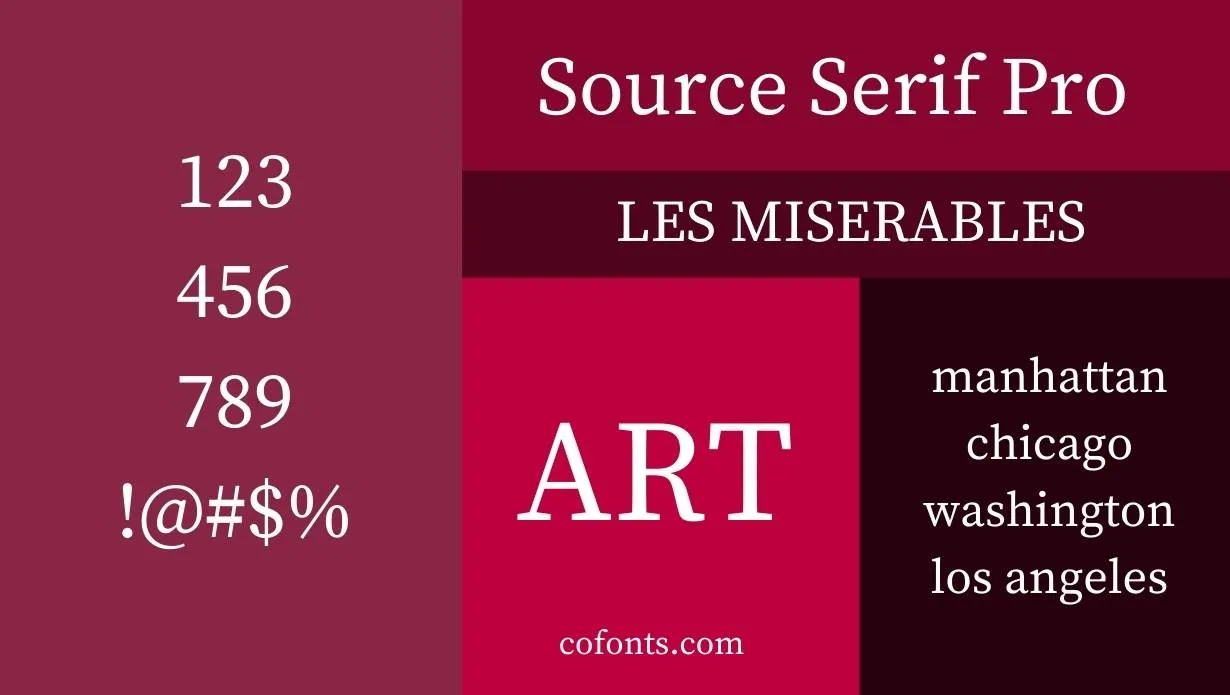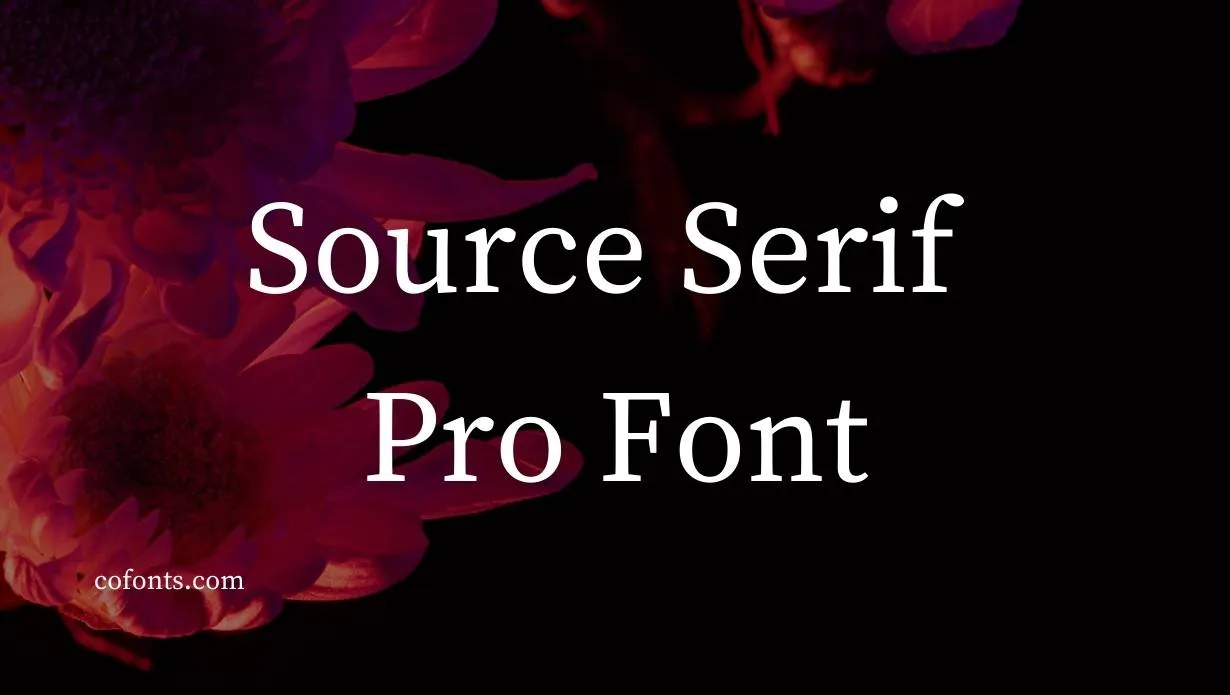
In today’s post, we are going to introduce you to a wonderful style of lovely font, that is known as Source Serif Pro Font. This font is a family member of the serif typeface appearance. this is a google typeface that has a lovely display appearance. This typeface is designed by a popular and well-known graphic and texture designer, who is known as Frank Grießhammer.
Usage of Source Serif Pro Font
This texture is a simple style of an outstanding typeface. That has a clean and clear touch feeling. And that is mainly used for print and digital design projects. This is one of the simple styles of font, that is very easy for the reader and more attractive from a distance as well.
The Source Serif Pro typeface is very good for any style of letters, invitations, with other related documentation. This is a wonderful style design of typeface that is the best for presentations, applications, visiting cards, and signboards.
Source Serif Pro Font Family View
Is Source Serif Pro a good typeface?
This is a good font because many designers are using this typeface in their big projects, and the viewer also likes its style and design.
What texture goes with Source Serif Pro?
There are so many styles of fonts that get match this texture, but the pairing and similar texture to this font is the bree serif font.
What is a Source Serif Pro typeface?
Source Serif Pro typeface is a family member of the serif typeface appearance. this is a google typeface that has a lovely display appearance.